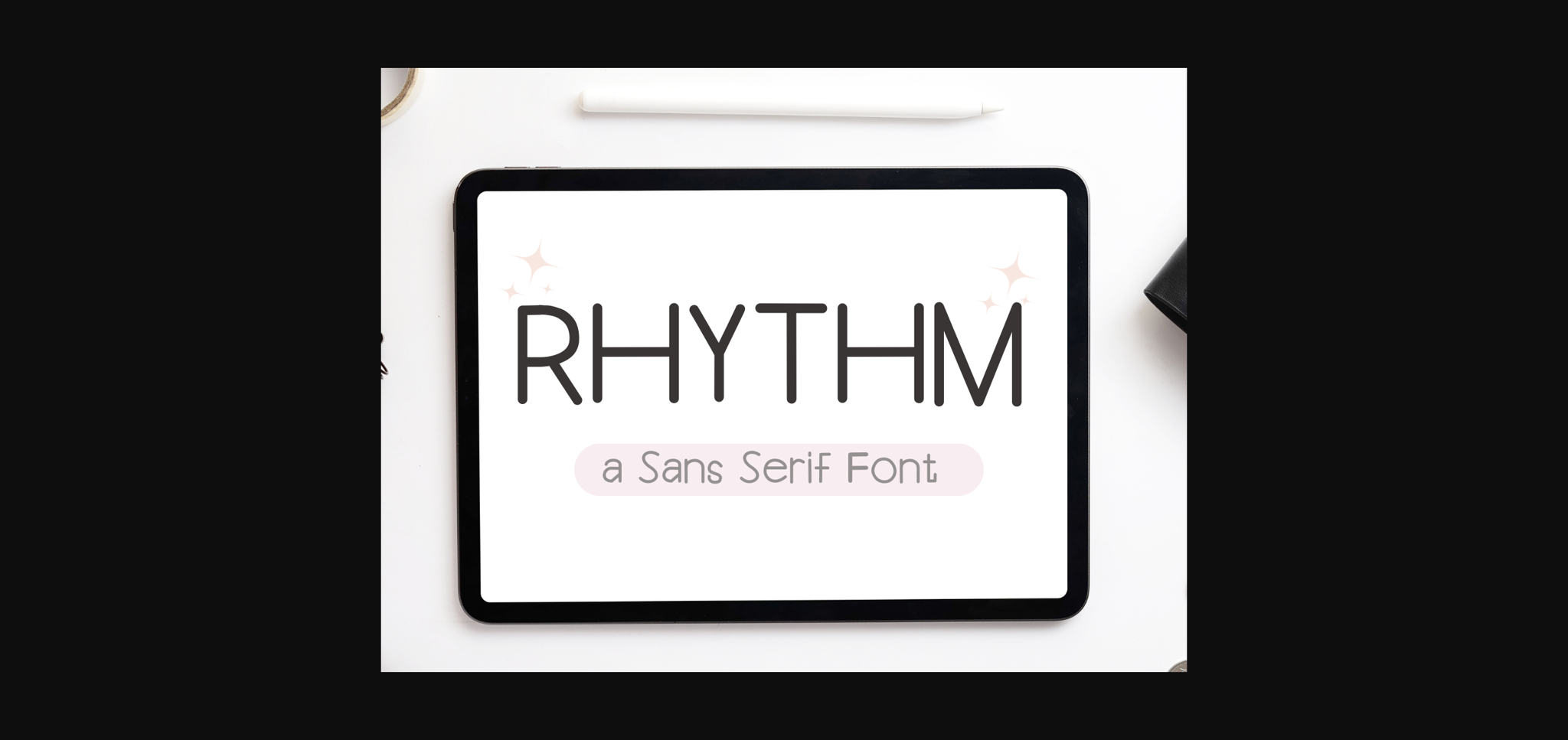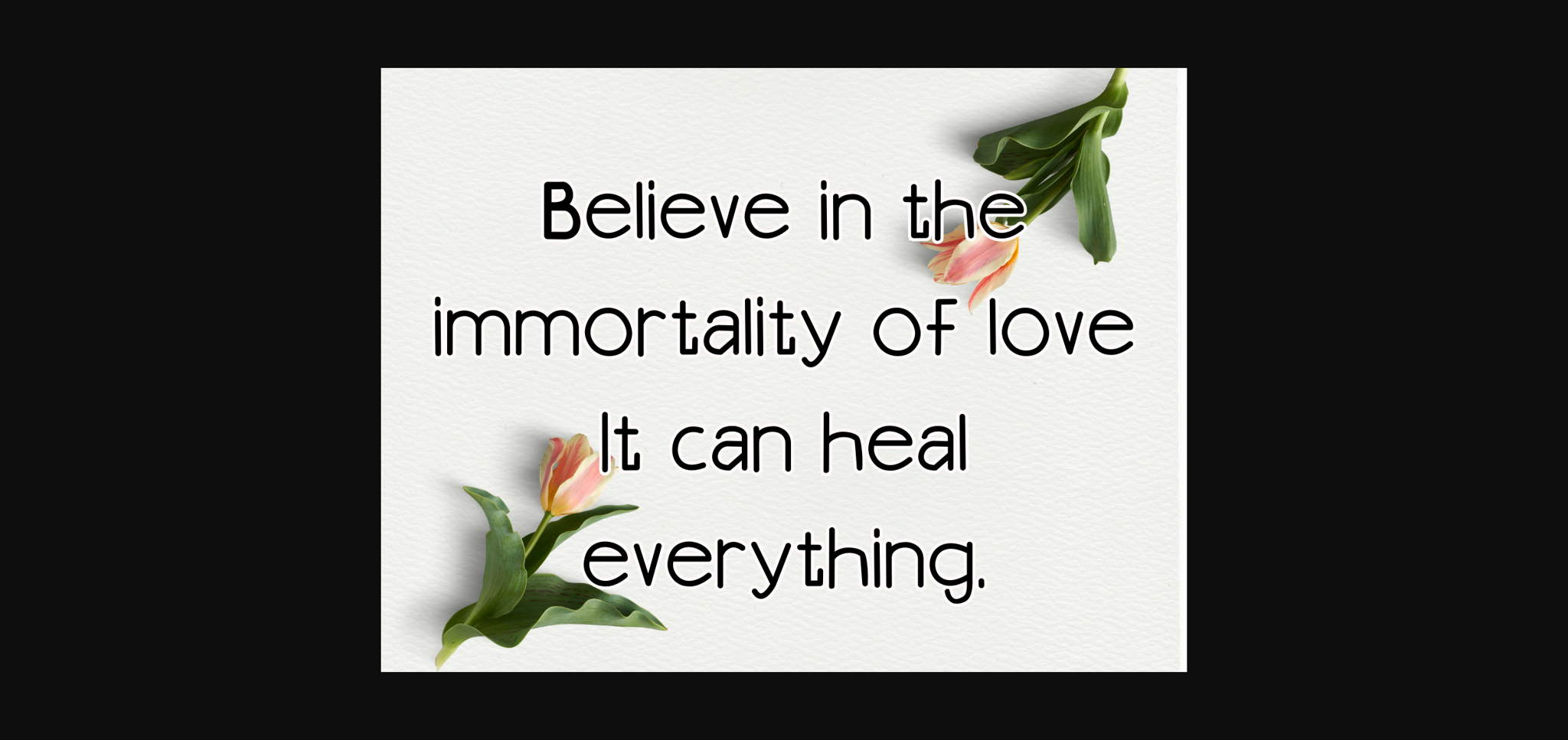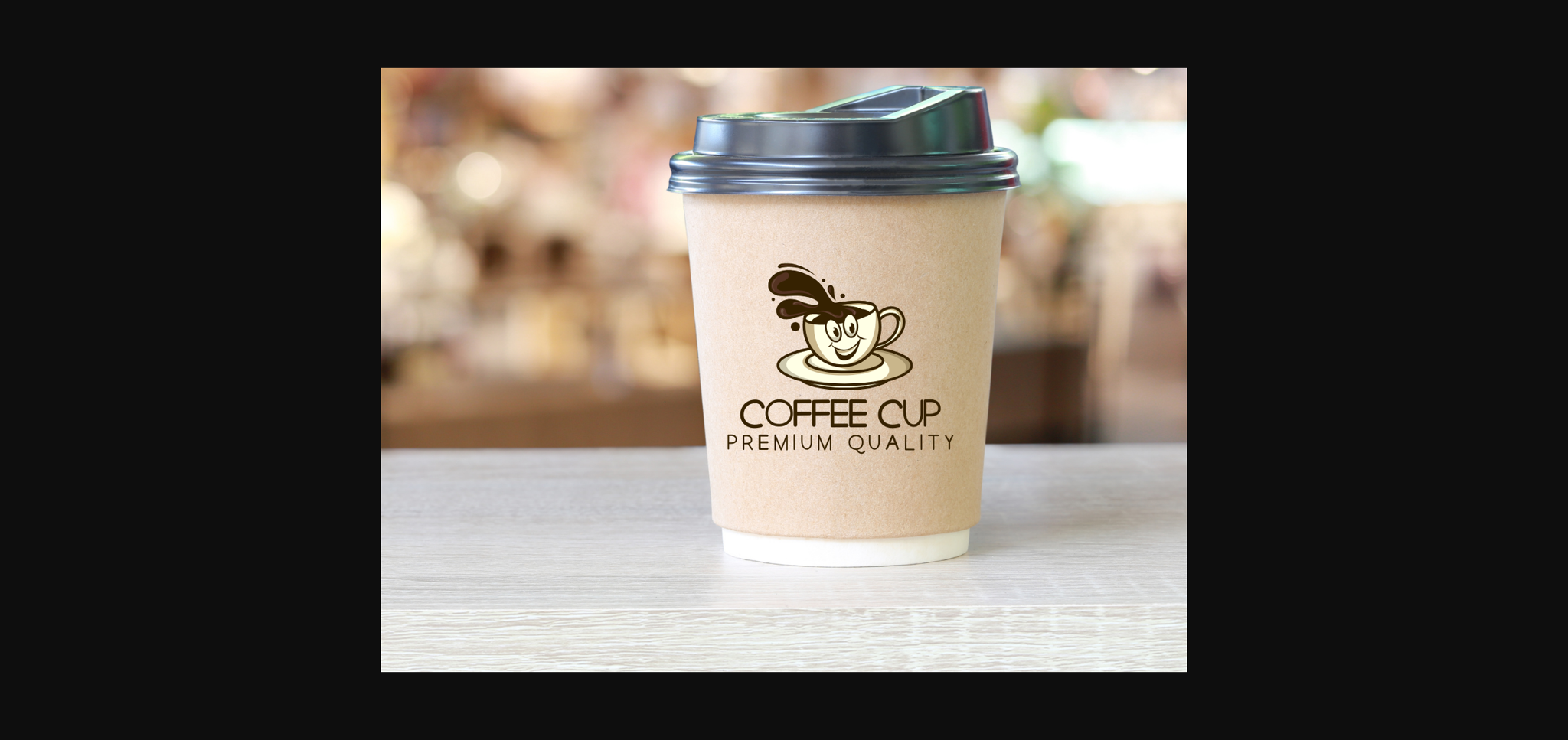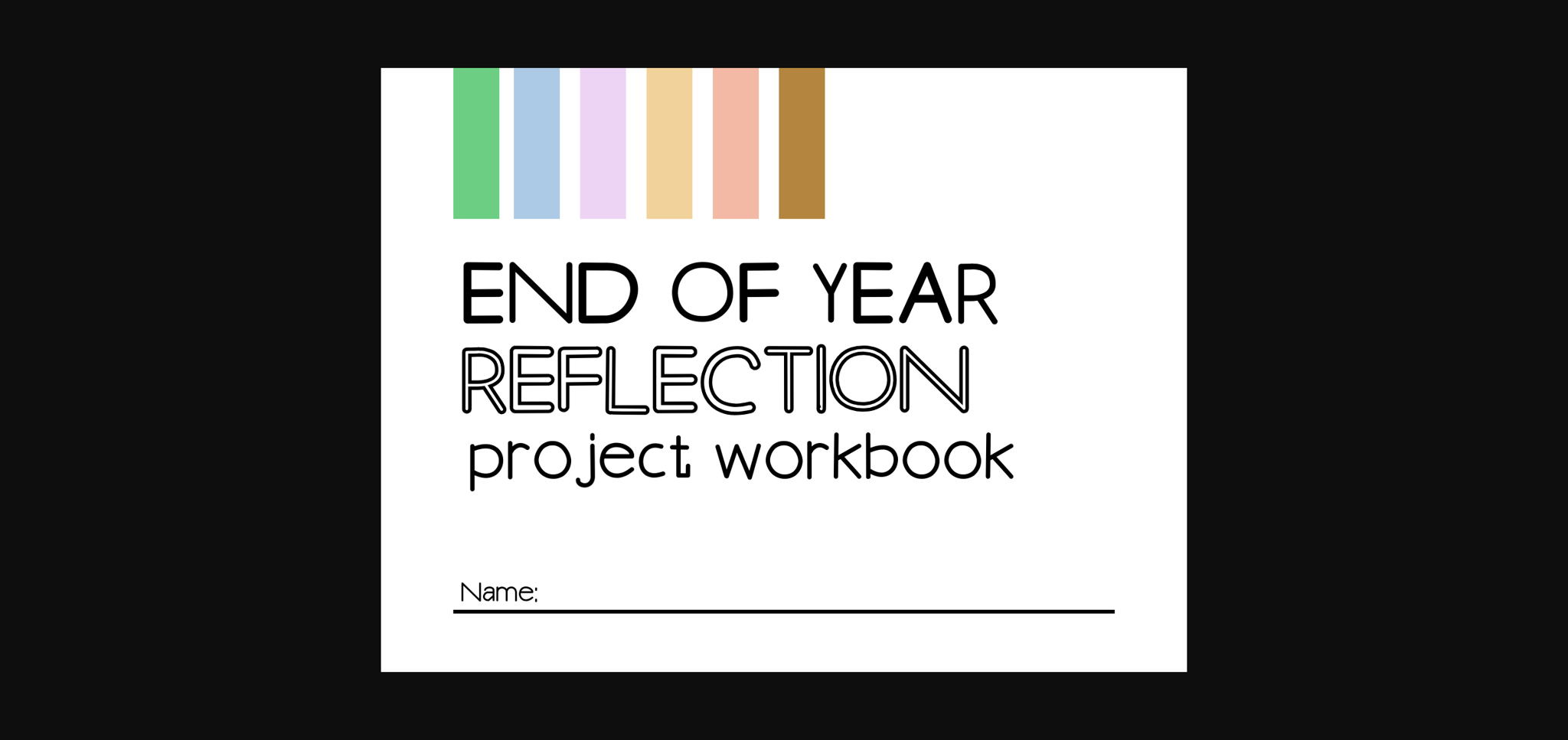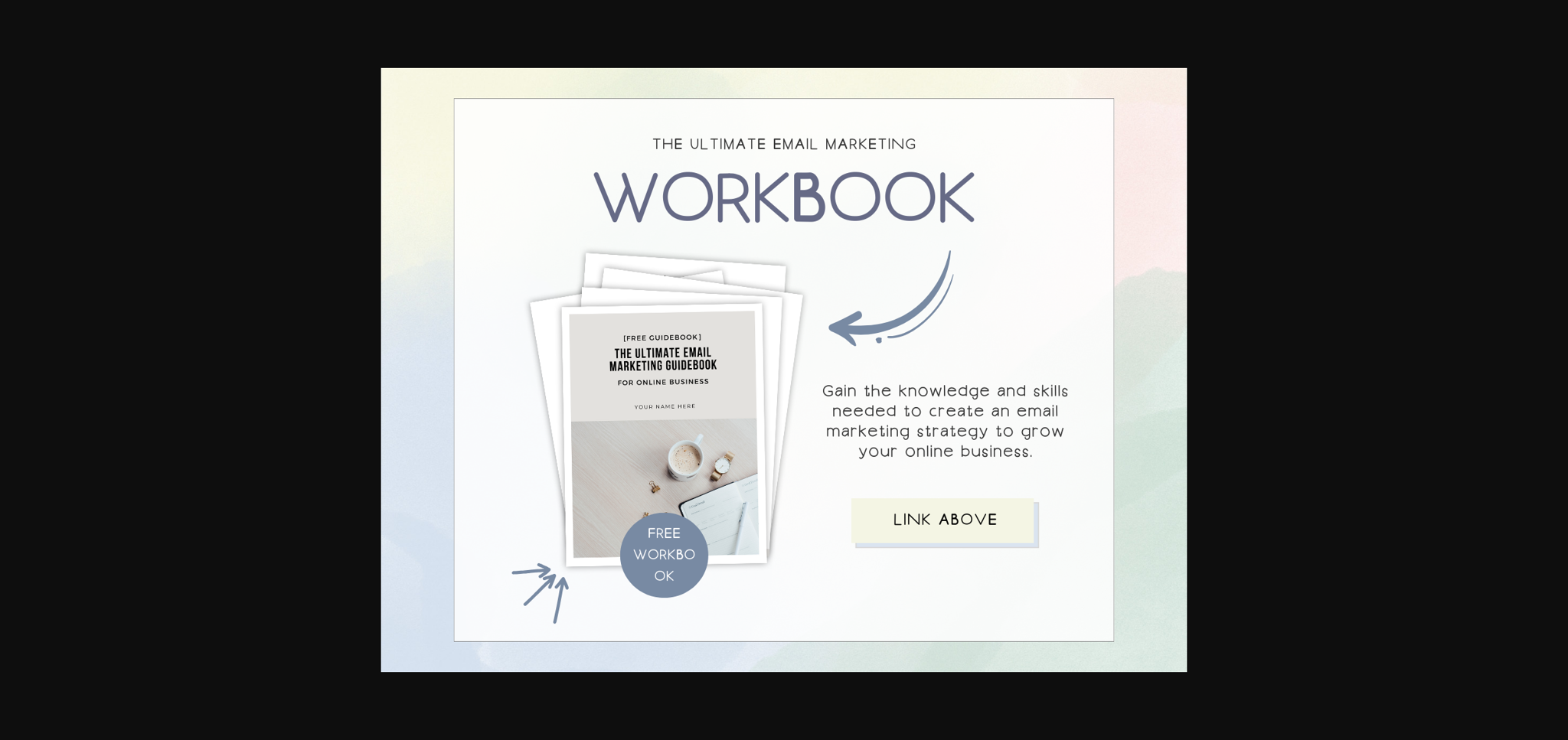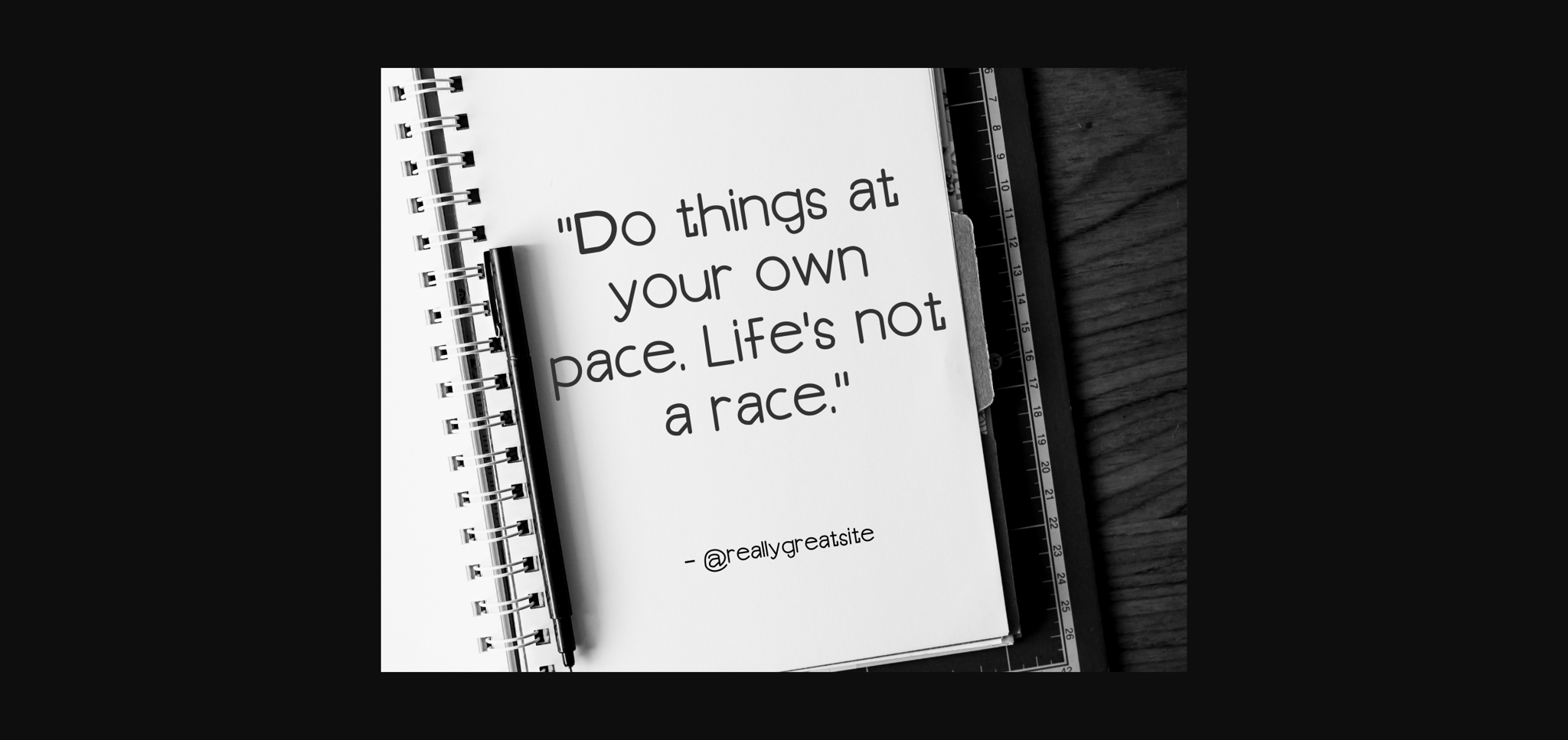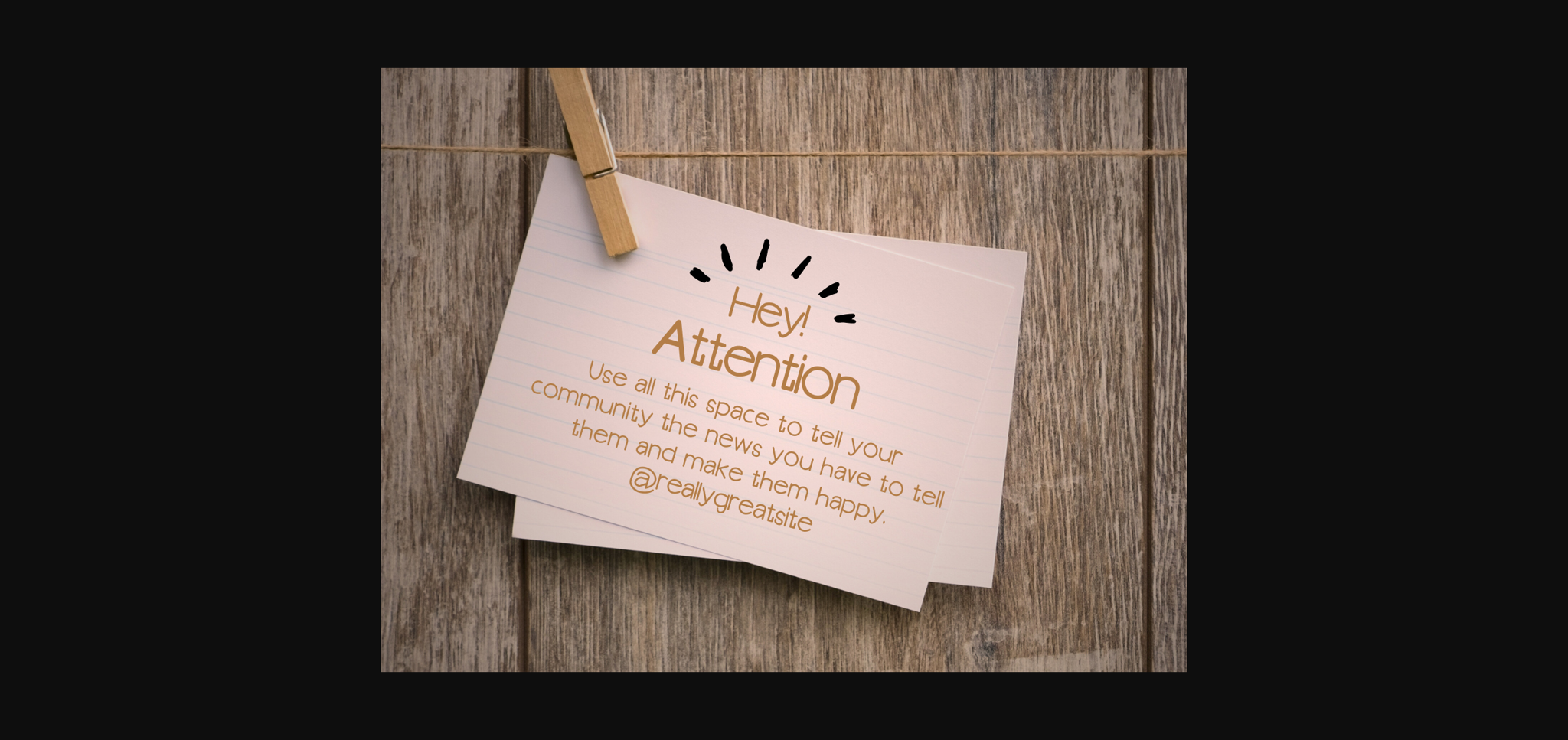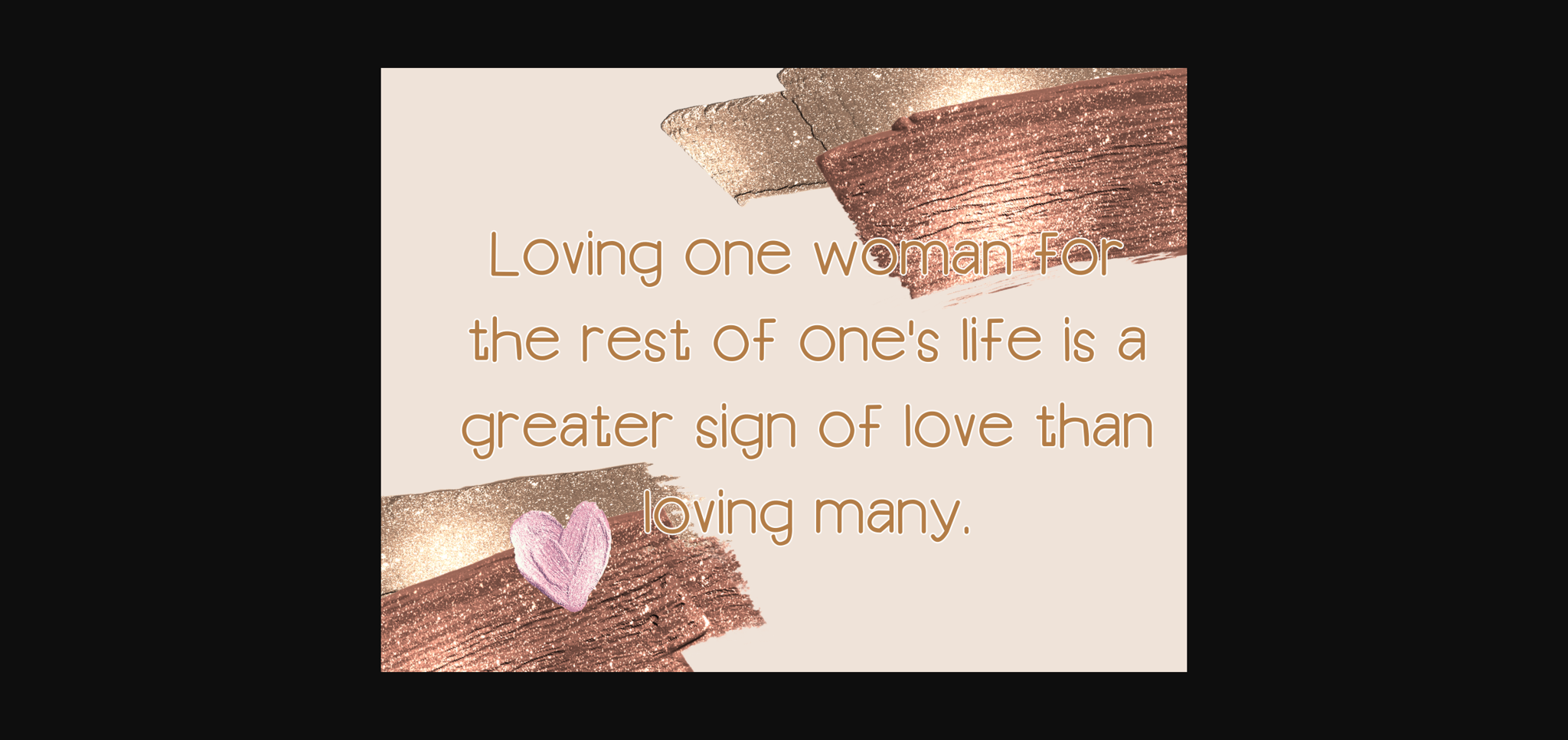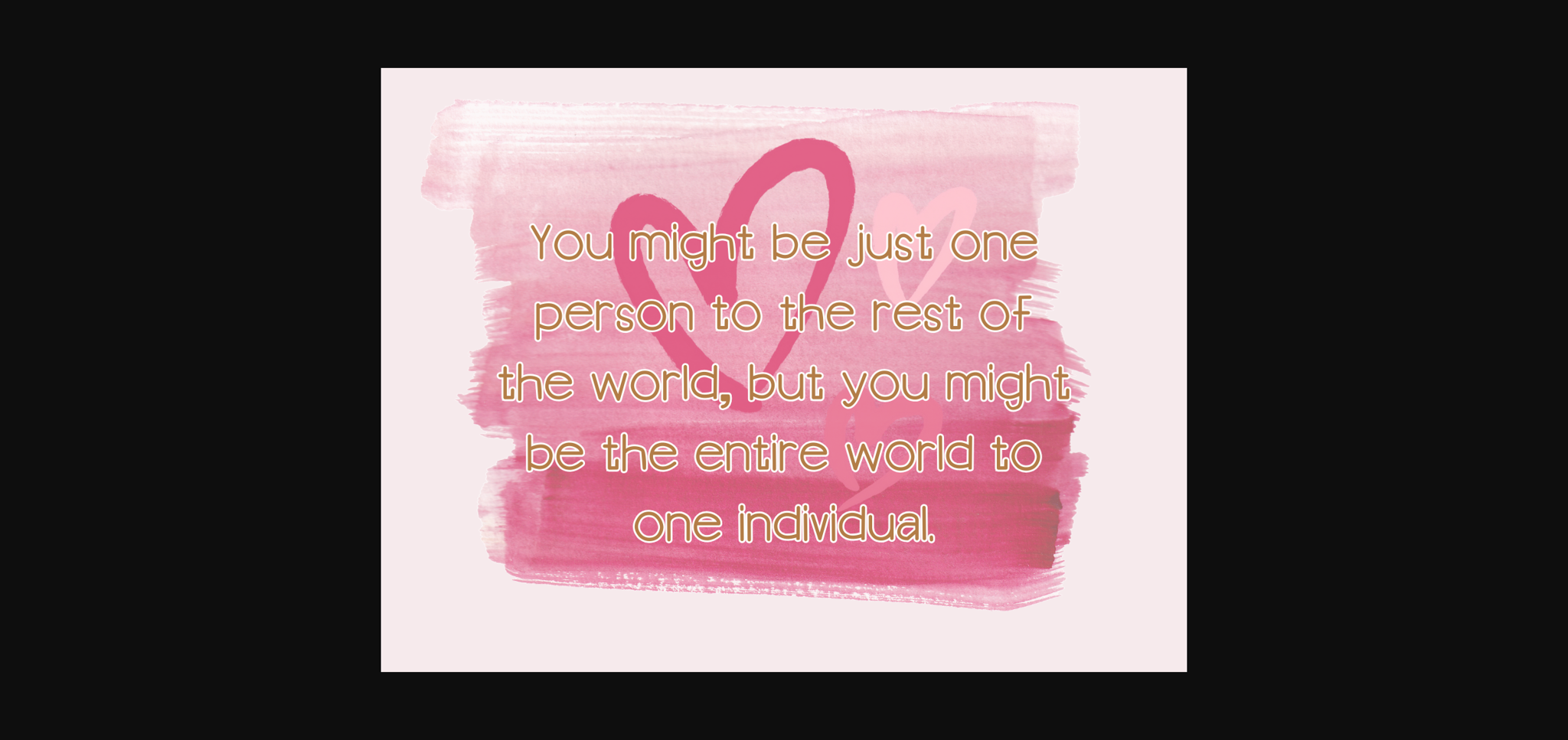
Rhythm Font
About Rhythm Font
Rhythm is a quirky sans-serif font that exudes charisma and individuality. With playful strokes and unique character shapes, it radiates a lively, handcrafted charm. Whether used for titles, logos, or creative projects, Rhythm stands as a testament to the spirit of unconventional and spirited design.